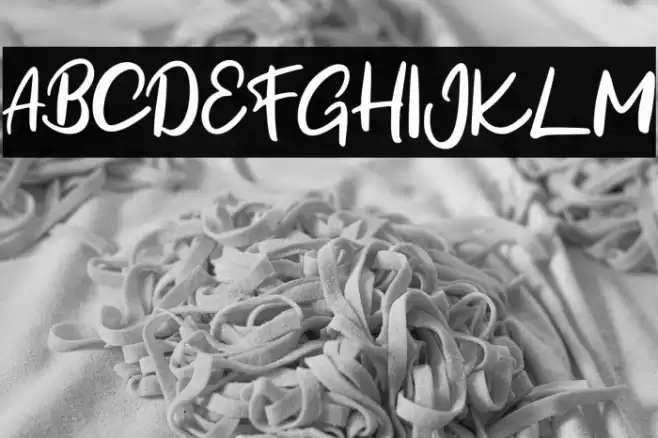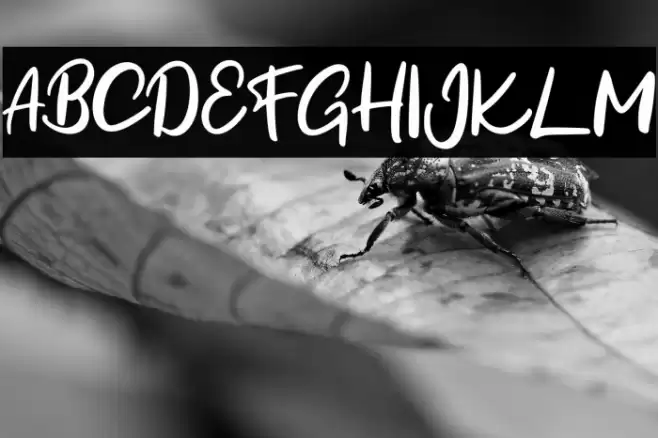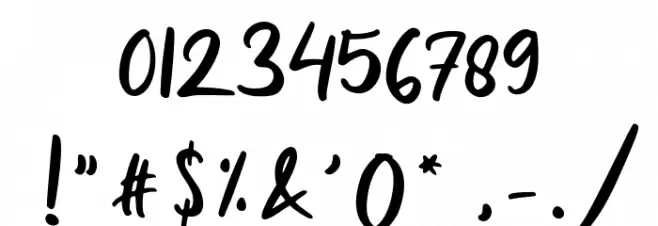
GilethaFREE Font
GilethaFREE Description
This font features a lively and energetic script style with a handwritten appearance. The uppercase letters are bold and slightly slanted, giving a dynamic feel. The lowercase letters are fluid and connected, enhancing the cursive aesthetic. Numbers and special characters maintain the playful and informal style, making them suitable for creative projects. The overall design is characterized by its smooth curves and consistent stroke width, providing a harmonious and cohesive look.
A lively, handwritten script font with bold, slanted uppercase and fluid lowercase letters from Uncategorized fonts.
- Font: GilethaFREE
- Proposed Projects: Ideal for greeting cards, invitations, logos, and playful branding materials.
- Use Case: Logos, Headlines, Invitations